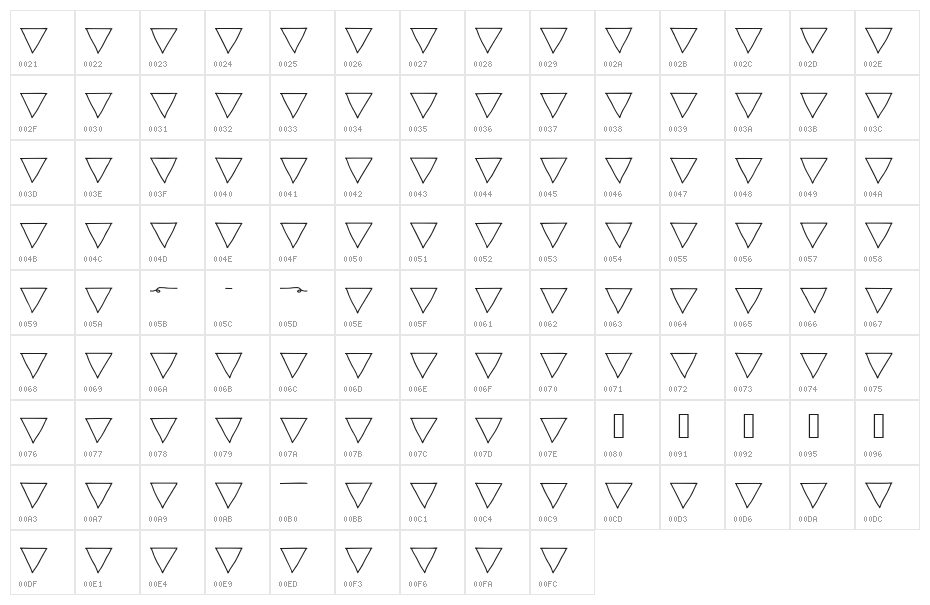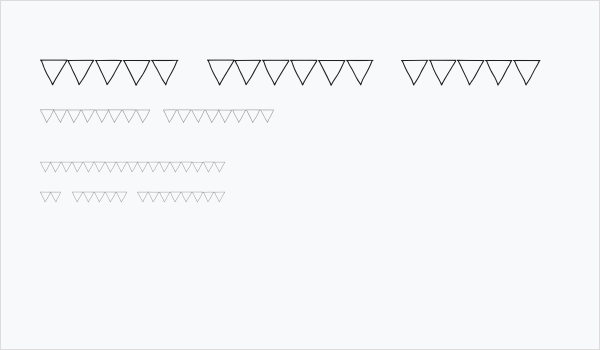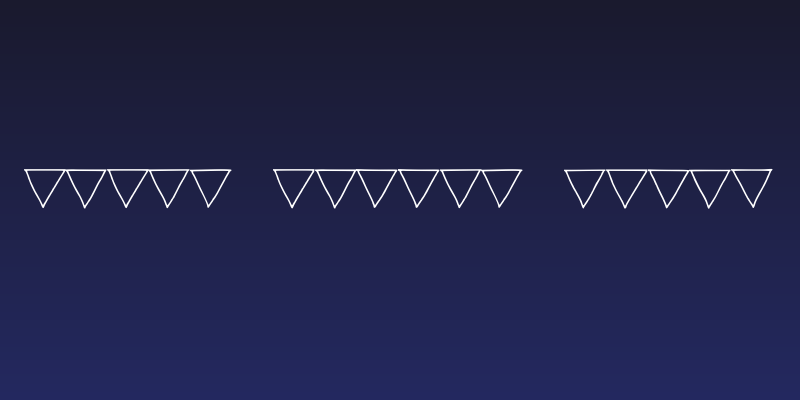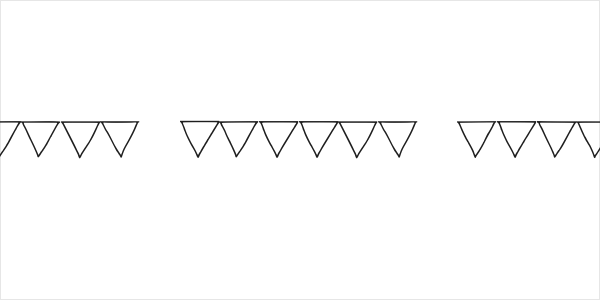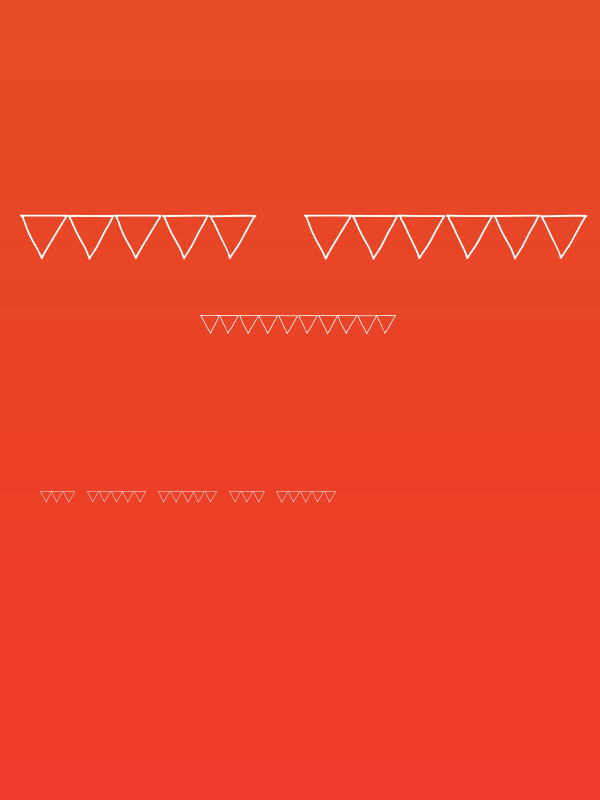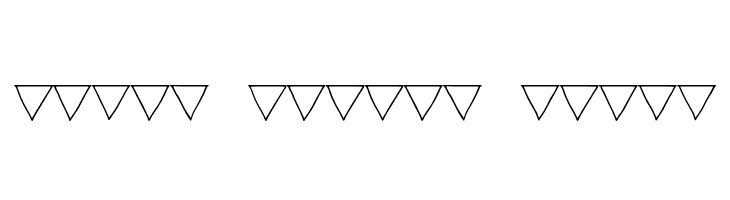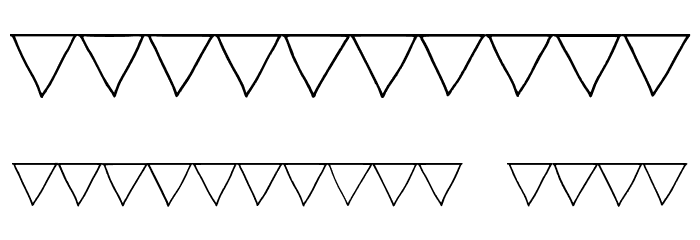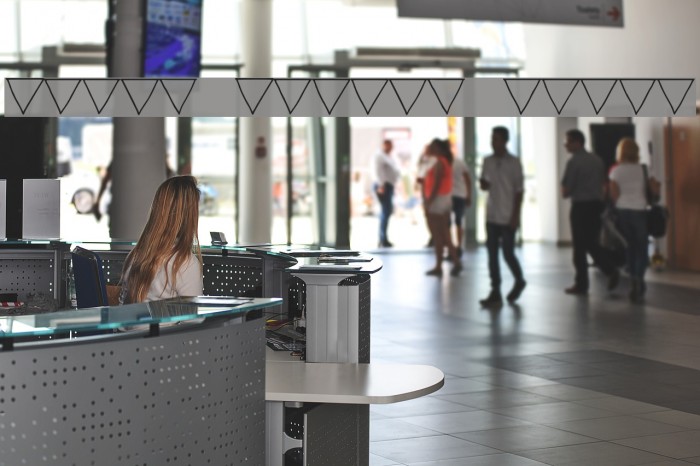
Paper Banner Light Font
Paper Banner Light Description
A decorative pattern resembling a string of triangular paper banners or pennants, outlined with thin lines and evenly spaced.
| Overall Style | Playful, festive, and casual |
| Use Case | Decorative borders, festive design elements, and party-themed graphics |
| Proposed Projects | Party invitations, festive event decorations, greeting cards, scrapbooking, and celebratory posters. |